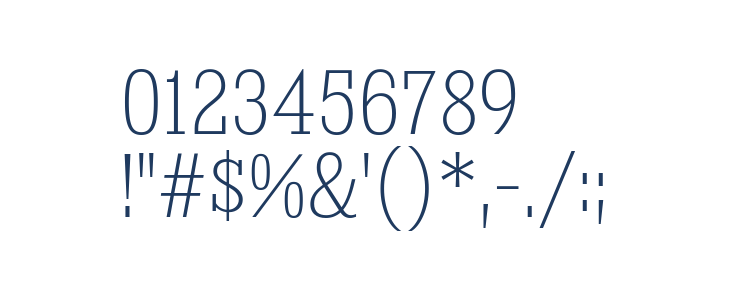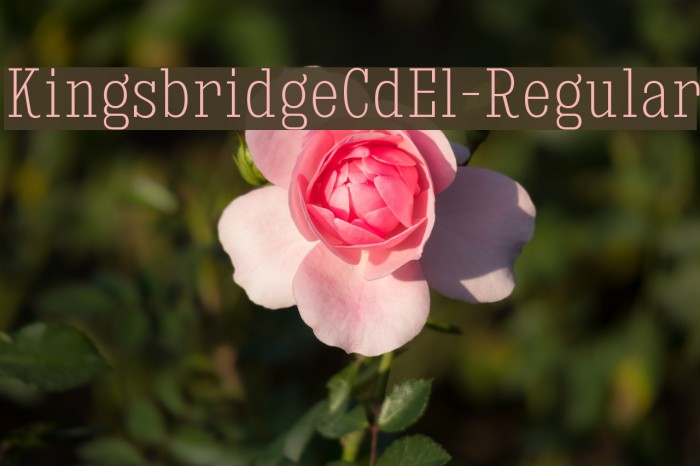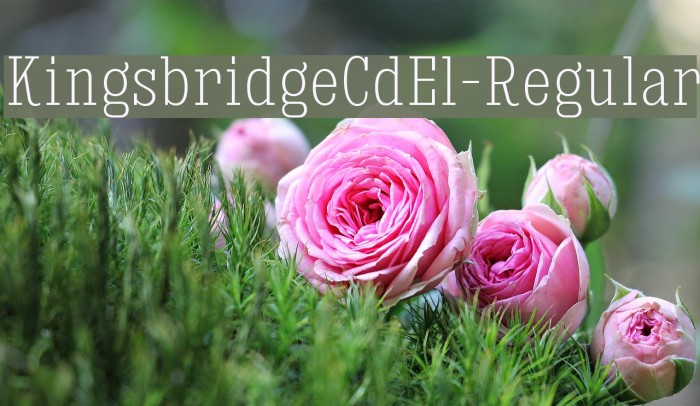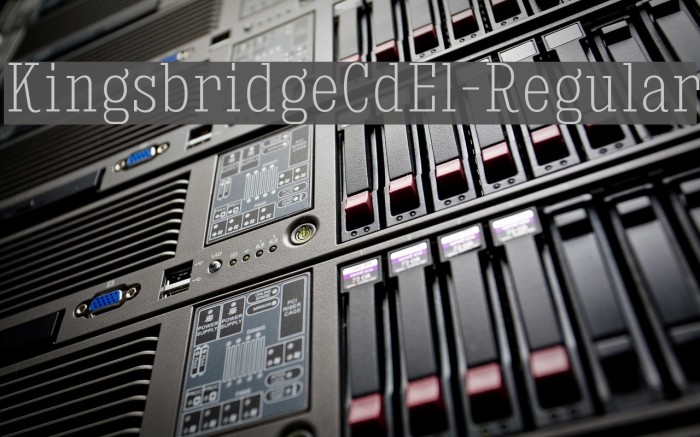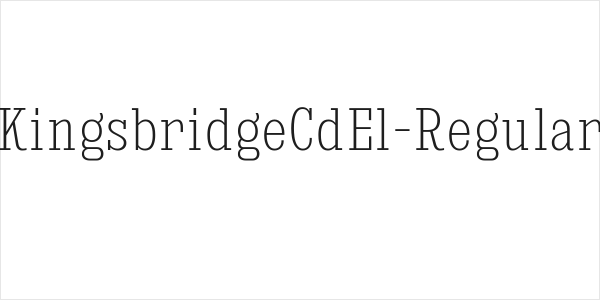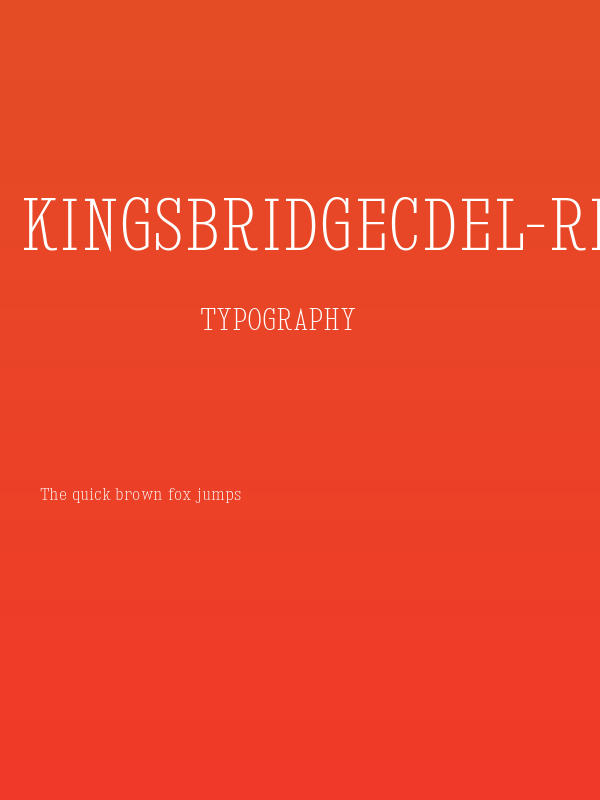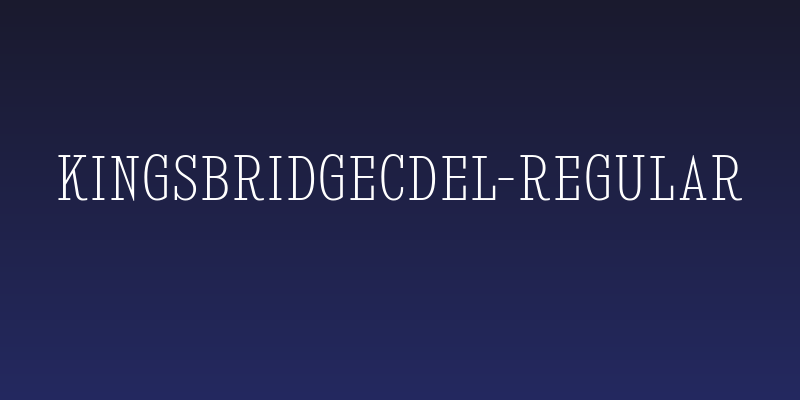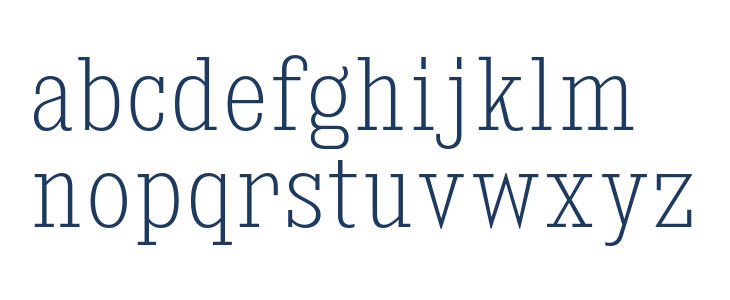
KingsbridgeCdEl-Regular Font
KingsbridgeCdEl-Regular Description
This font features a classic serif style with a modern twist, characterized by its clean lines and elegant proportions. The uppercase letters are tall and commanding, while the lowercase letters maintain a balanced and readable form. The numerals are distinct and clear, making them suitable for a variety of applications. Special characters are well-integrated, maintaining the overall aesthetic of the font. The design is versatile, offering a sophisticated look that can be used in both formal and contemporary settings. Its readability and timeless appeal make it a great choice for a wide range of design projects.
| Proposed Projects | Ideal for editorial design, branding, and formal invitations. |